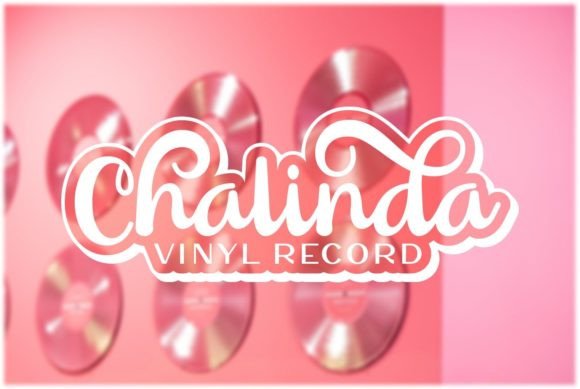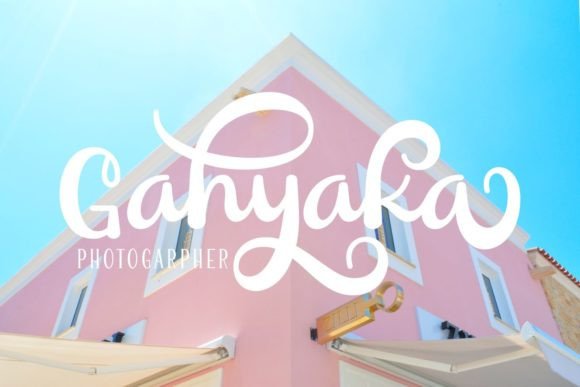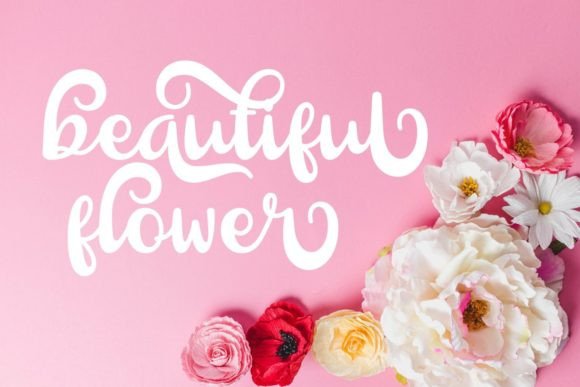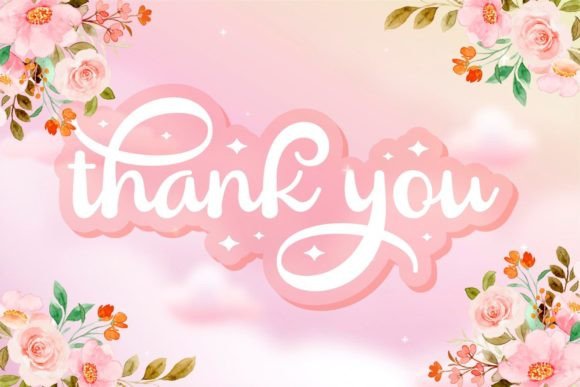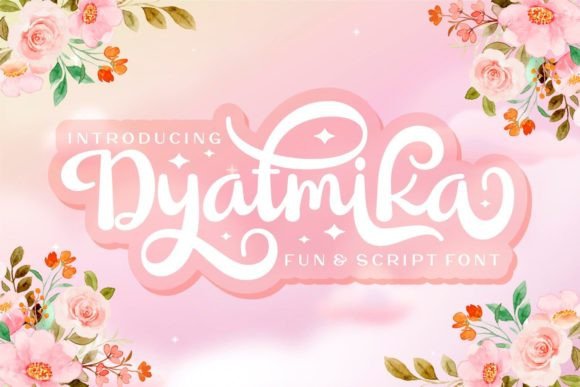
Dyatmika Font: Adding a Touch of Joy to Your Designs
Are you looking for a font that can add a playful and lighthearted touch to your designs? Look no further than Dyatmika, a lovely and charming handwritten font that’s perfect for a variety of projects. In this article, we’ll take a closer look at Dyatmika, its features, and how you can use it to elevate your designs.
What is Dyatmika Font?
Dyatmika is a beautiful, handwritten font that’s designed to bring a sense of joy and playfulness to your designs. Its bouncy, flowing letterforms are whimsical and carefree, making it the perfect choice for projects that require a lighthearted touch. Whether you’re designing invitations, greeting cards, or other materials, Dyatmika is sure to add a touch of personality and charm.
Key Features of Dyatmika Font
So, what makes Dyatmika so special? Here are some of its key features:
- Handwritten style: Dyatmika is a handwritten font, which gives it a personal and unique feel.
- Bouncy letterforms: The font’s letterforms are bouncy and flowing, which adds to its playful and whimsical feel.
- Whimsical and carefree: Dyatmika’s design is perfect for projects that require a lighthearted and carefree touch.
- Perfect for creative projects: Whether you’re designing invitations, greeting cards, or other materials, Dyatmika is a great choice.
Uses for Dyatmika Font
Dyatmika is a versatile font that can be used for a variety of projects, including:
- Invitations: Dyatmika is perfect for wedding invitations, birthday invitations, and other special occasion invites.
- Greeting cards: The font’s playful and whimsical feel makes it a great choice for greeting cards, including birthday cards, thank-you cards, and more.
- Social media graphics: Dyatmika can add a touch of personality to your social media graphics, including Facebook posts, Instagram stories, and more.
- Branding and packaging: The font’s unique feel makes it a great choice for branding and packaging projects, including logos, labels, and more.
Tips for Using Dyatmika Font
Here are some tips for getting the most out of Dyatmika:
- Use it with contrasting fonts: Pair Dyatmika with a contrasting font, such as a bold sans-serif, to create visual interest.
- Experiment with colors: Dyatmika looks great in a variety of colors, so don’t be afraid to experiment and find the perfect hue for your project.
- Use it in moderation: While Dyatmika is a beautiful font, it can be overwhelming if used too much. Use it in moderation to create a balanced design.
| Font Name | Dyatmika Font |
| Author | Rifki (7ntypes) |
Dyatmika is a lovely and playful handwritten font that’s perfect for adding a touch of joy to your designs. Its bouncy, flowing letterforms feel whimsical and carefree, making it the perfect choice for invitations, greeting cards, and other projects that call for a playful and lighthearted touch. With its versatility and charm, Dyatmika is sure to become a favorite in your font collection.
- What type of font is Dyatmika? Dyatmika is a handwritten font.